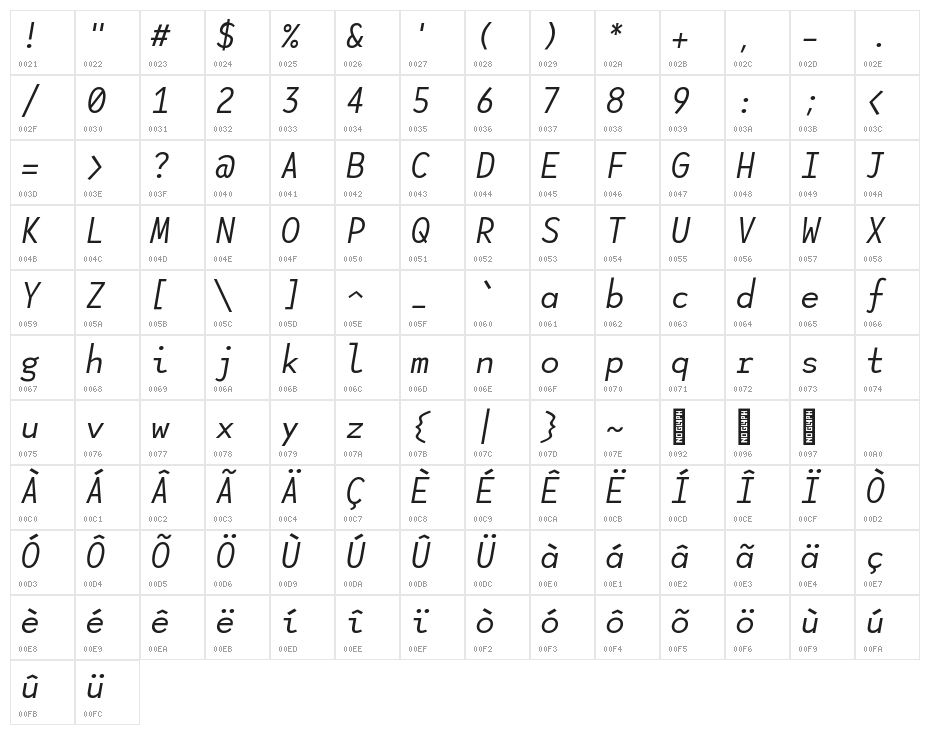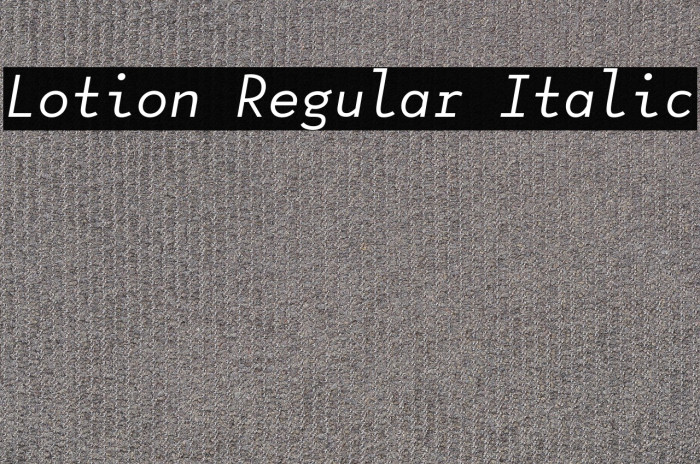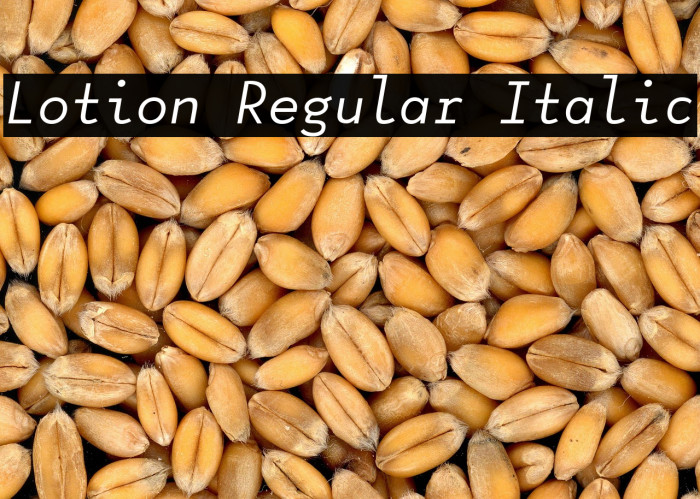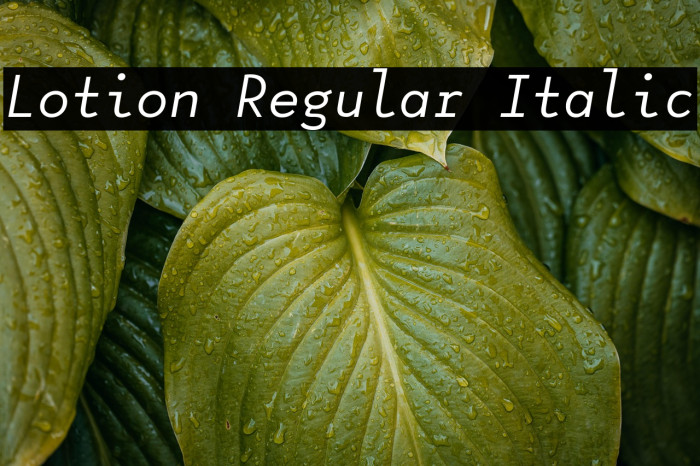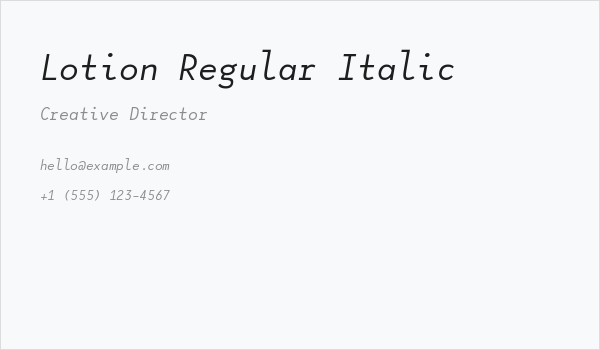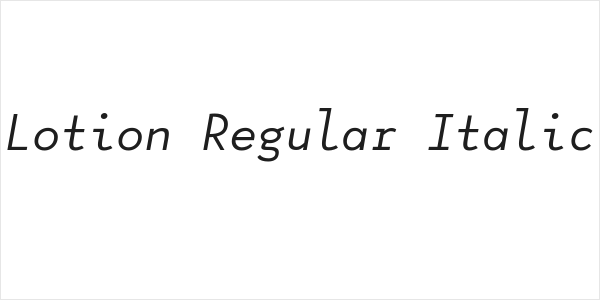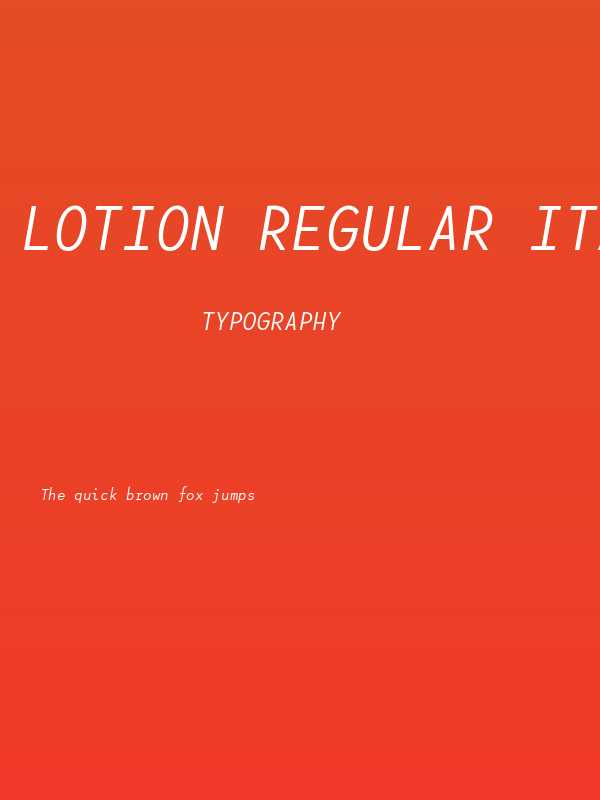
Lotion Regular Italic Font
Lotion Regular Italic Description
This font features a clean and modern design with a slightly slanted, italicized style. The characters are evenly spaced, providing a balanced and readable appearance. The strokes are consistent in thickness, offering a medium contrast that enhances legibility. The uppercase letters are bold and assertive, while the lowercase letters maintain a smooth and flowing form. The numerals are clear and distinct, making them suitable for various applications. The special characters are well-integrated, complementing the overall aesthetic of the font.
| Proposed Projects | Ideal for branding, editorial design, and digital content where a modern and elegant touch is desired. |